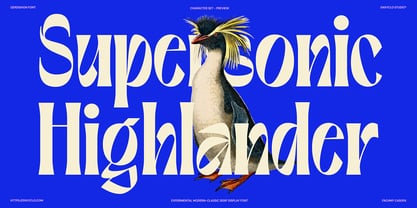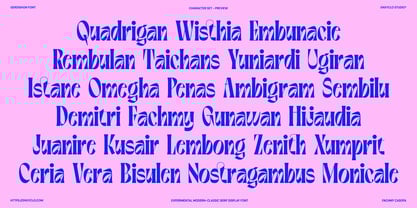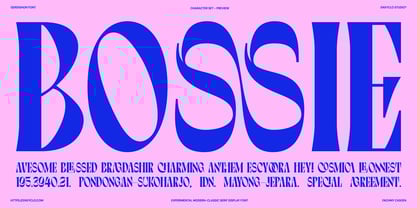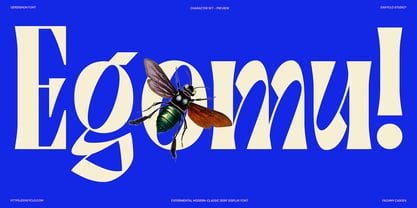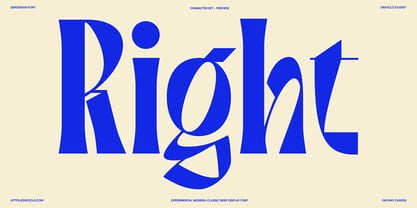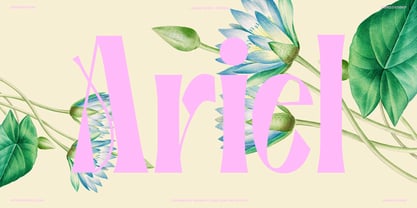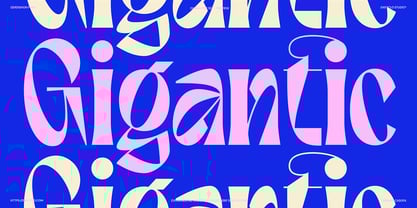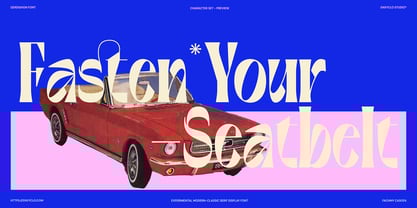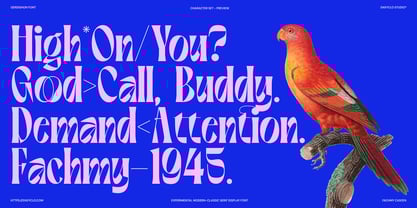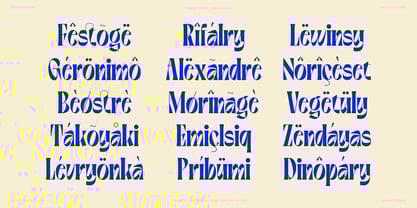
Gerdishon
Gerdishon, a bold and experimental modern-classic serif display typeface that pushes the boundaries of modern design. With its sharp edges, dramatic curves, and artistic flair, Gerdishon is designed to make a statement. Perfect for editorial headlines, logo design, album covers, posters, and high-fashion branding, this typeface blends classic elegance with a modern-classic attitude. Crafted for designers who dare to be different, Gerdishon is not just a font—it’s a visual experience.
• 277 Glyphs
• Uppercase & Lowercase
• Numeral, Punctuation & Symbols
• Alternates, Ligature and Stylistic Set
• Multilingual Support